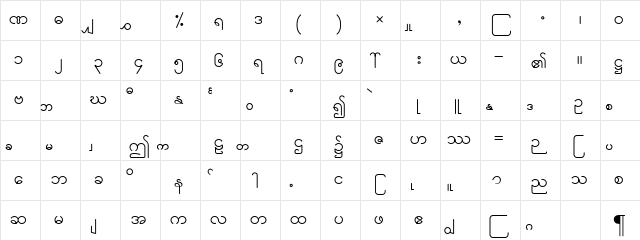
CE Excel True Type Medium
Design Context for CE Excel True Type Typeface
CE Excel True Type offers clean, dependable letterforms without strong stylistic allegiance, making it a practical choice for designers who need flexibility.